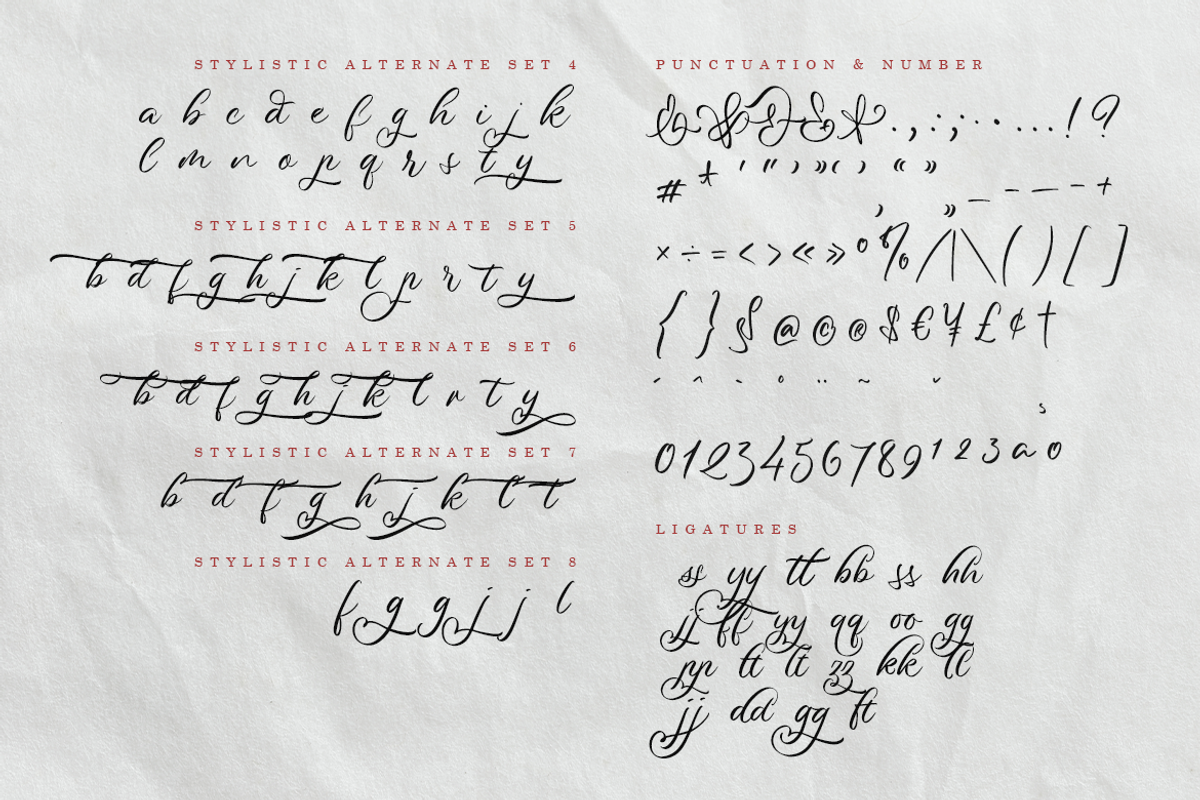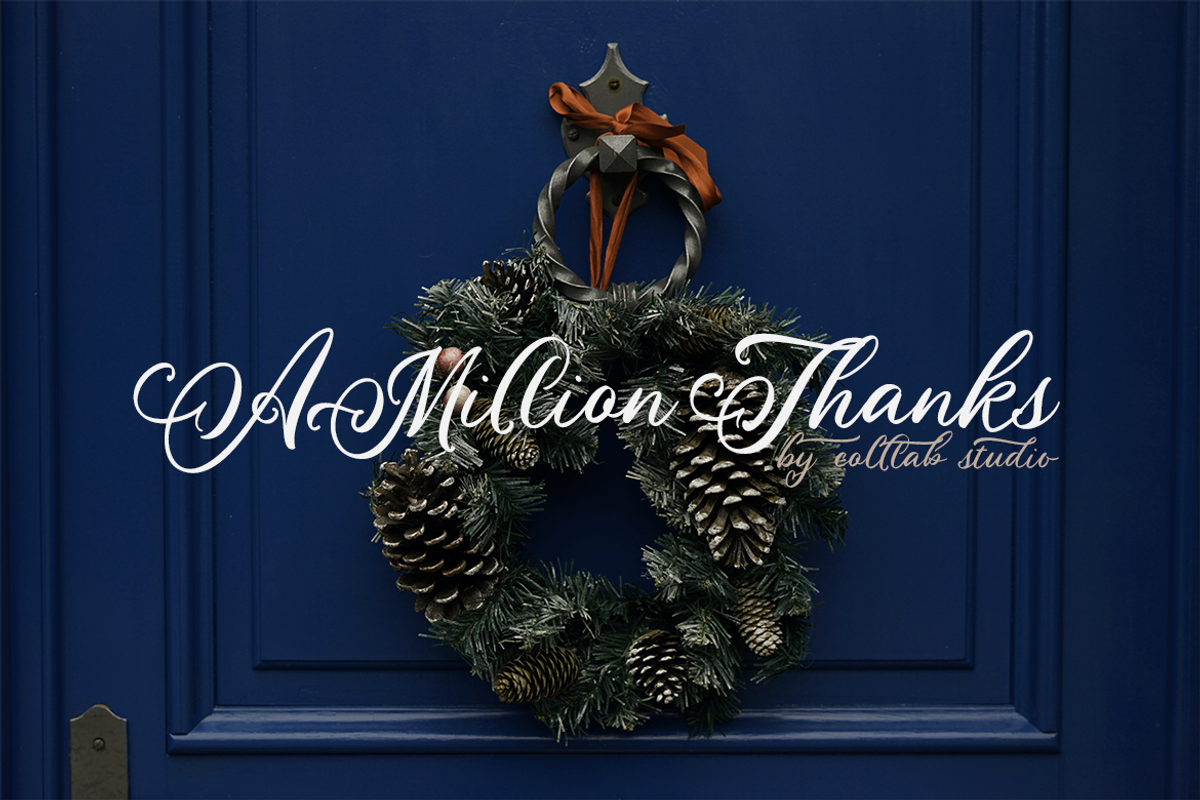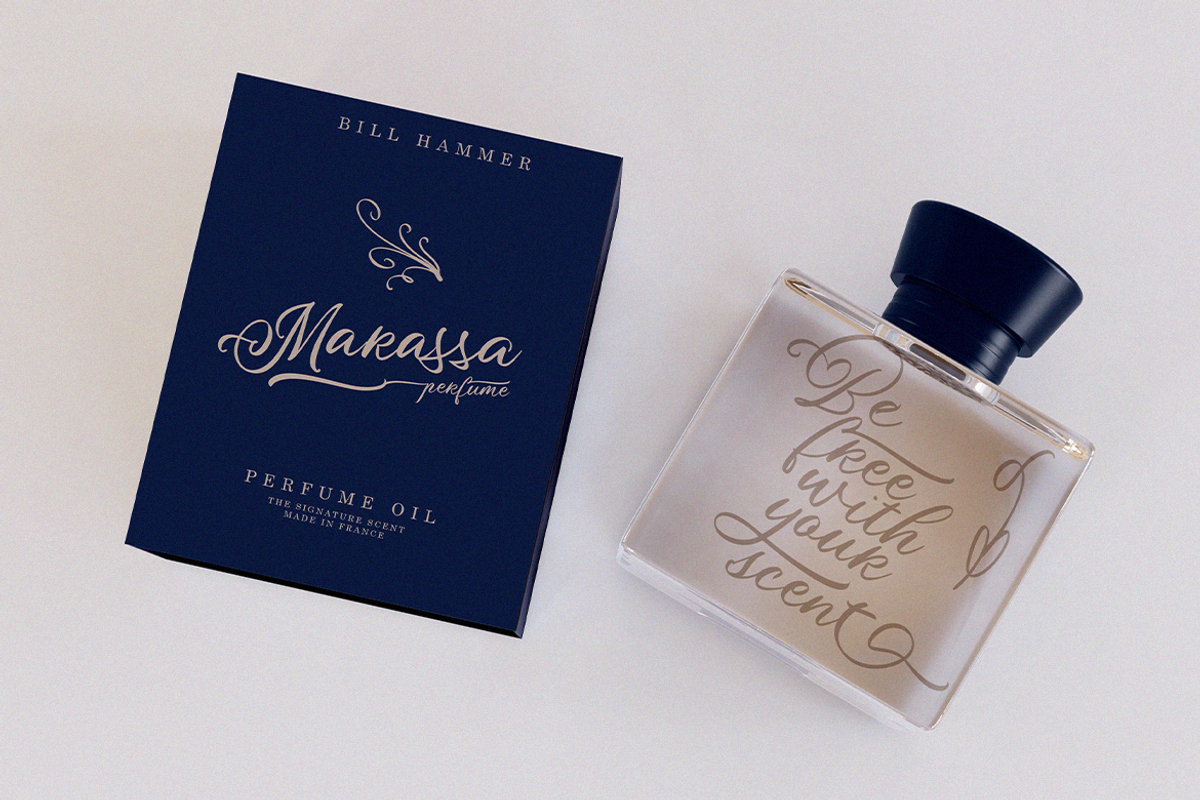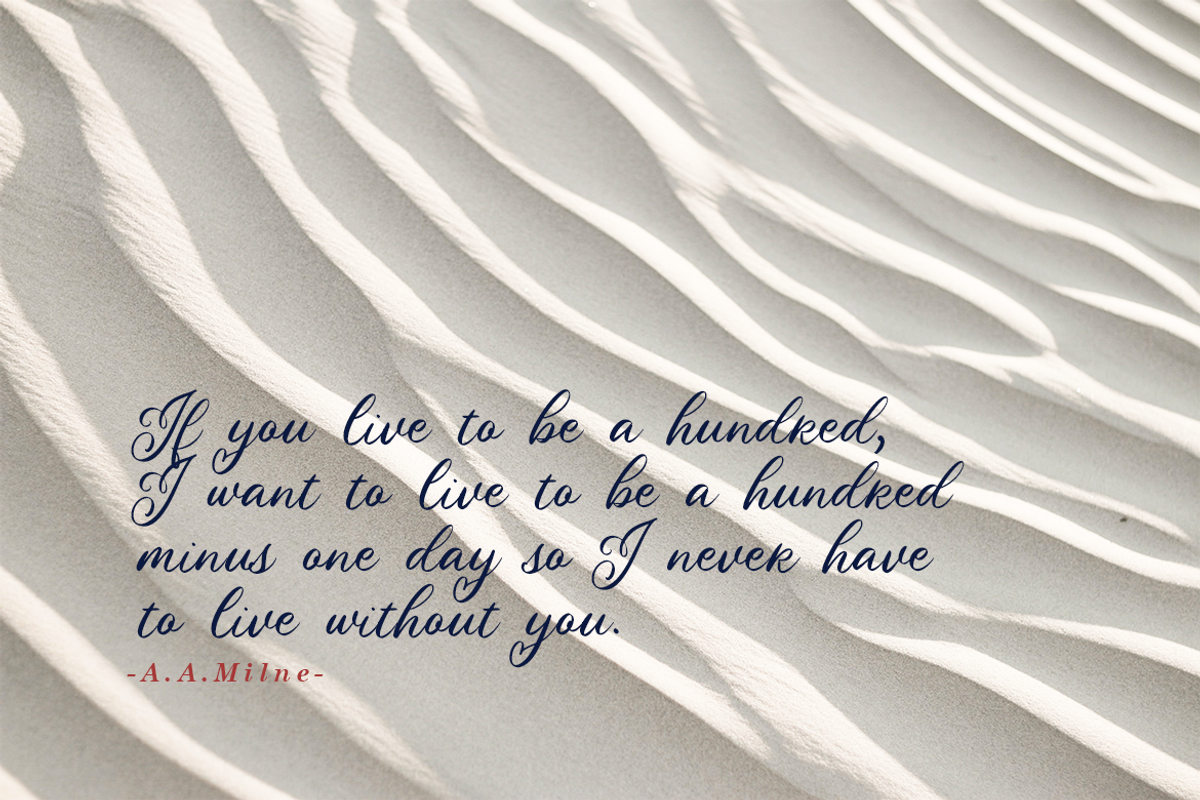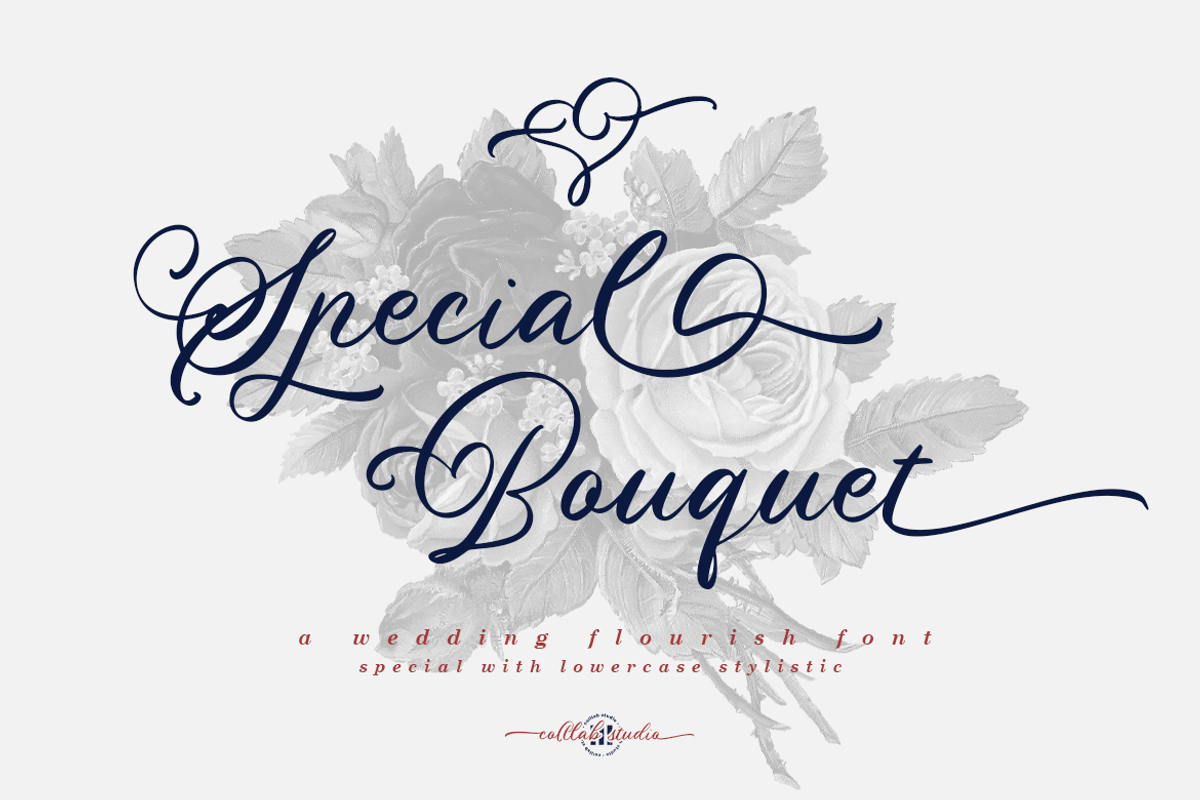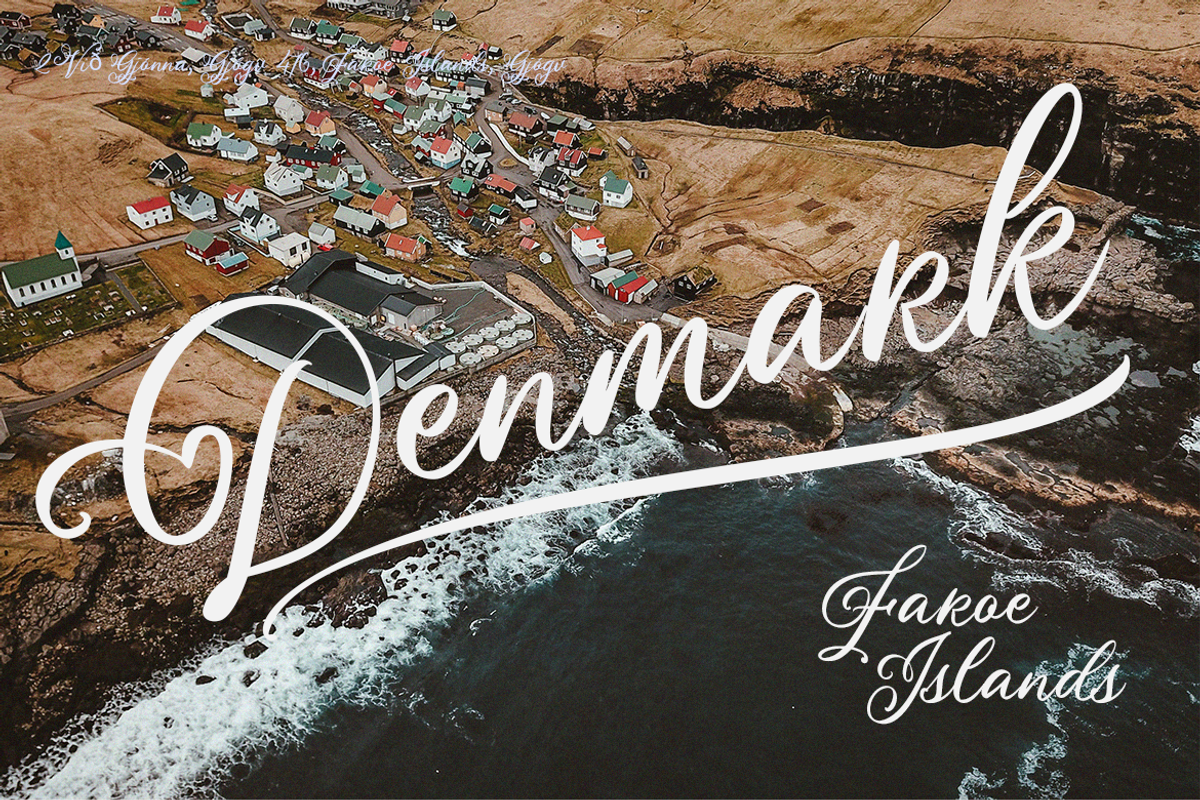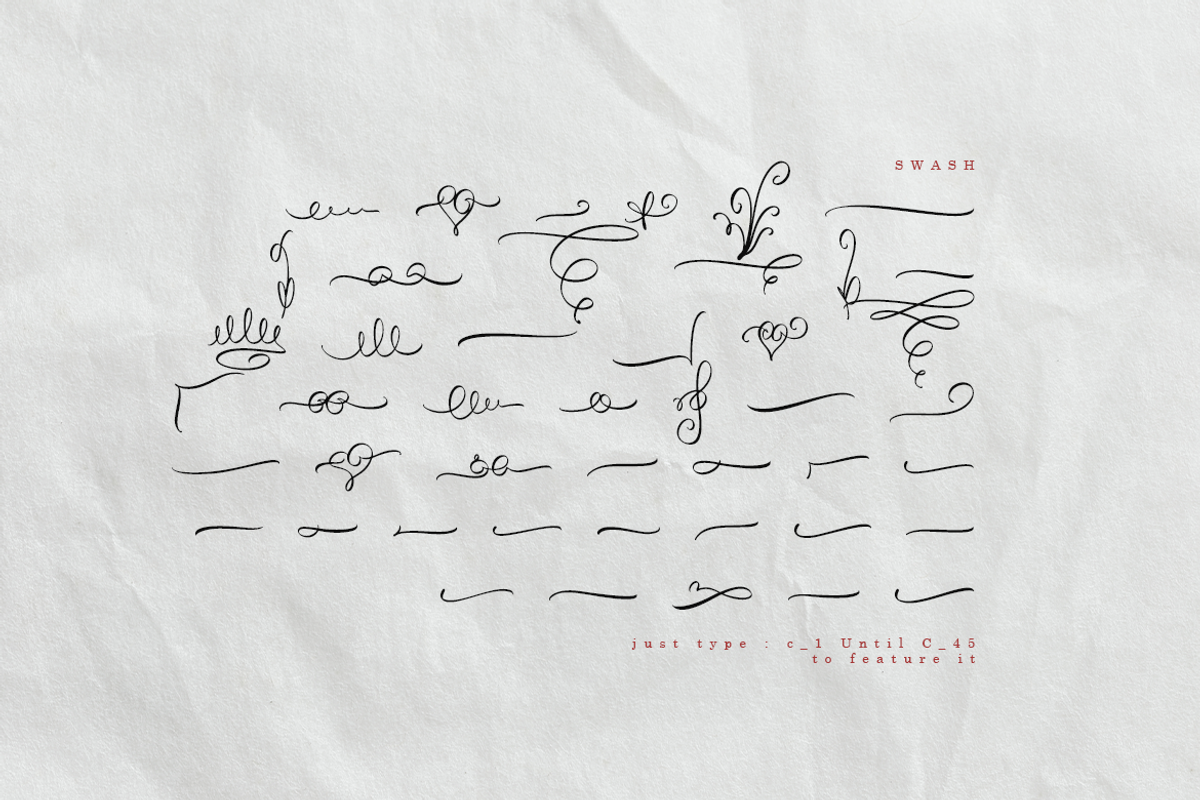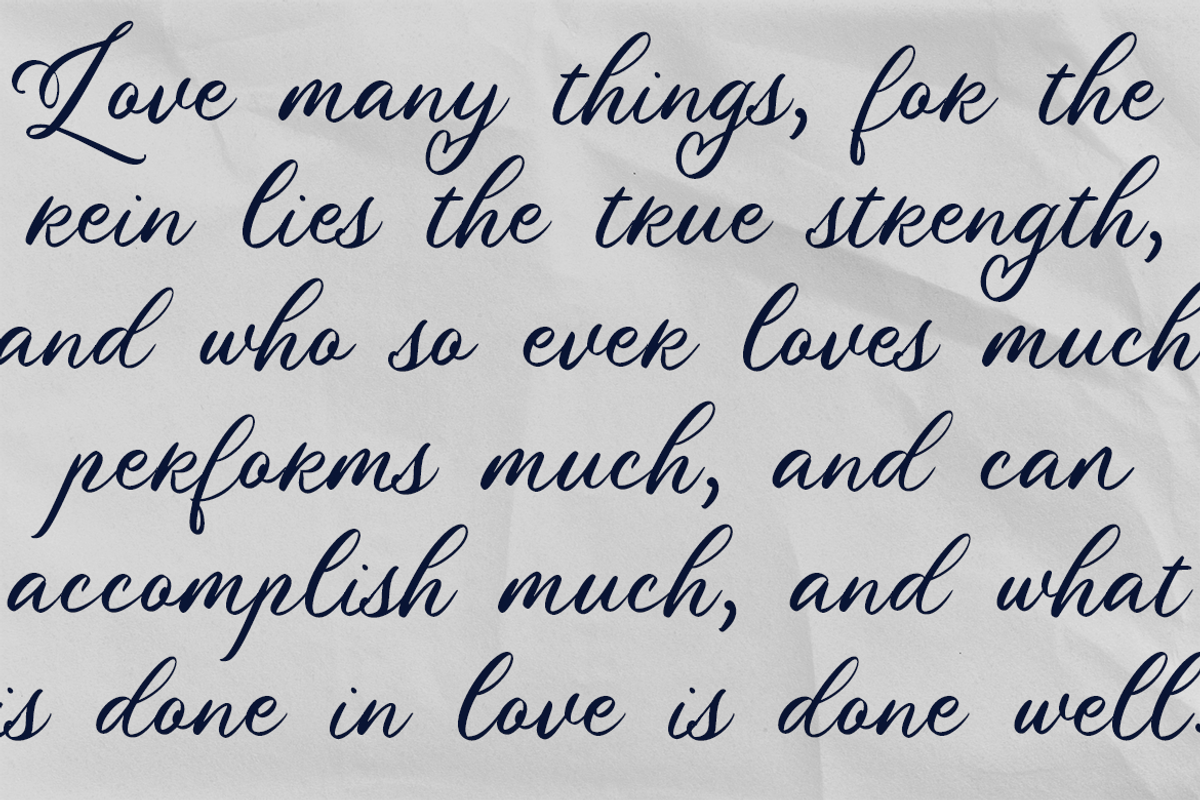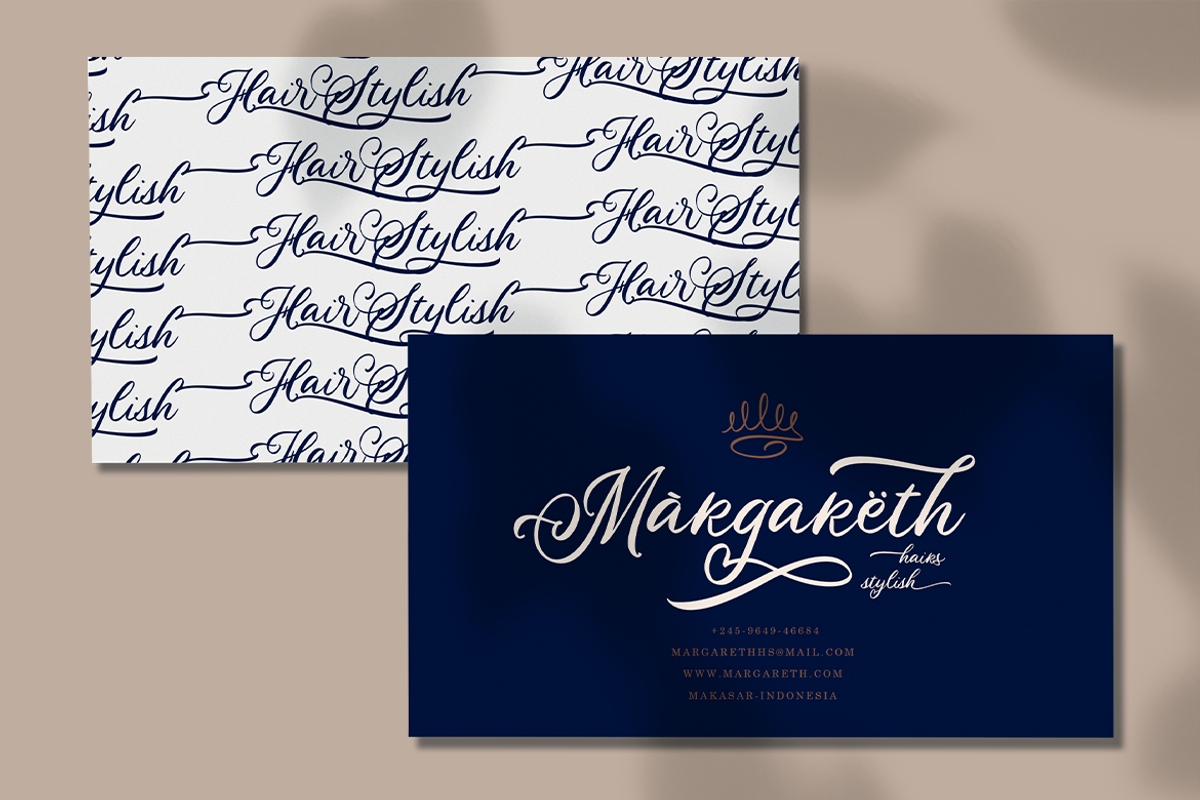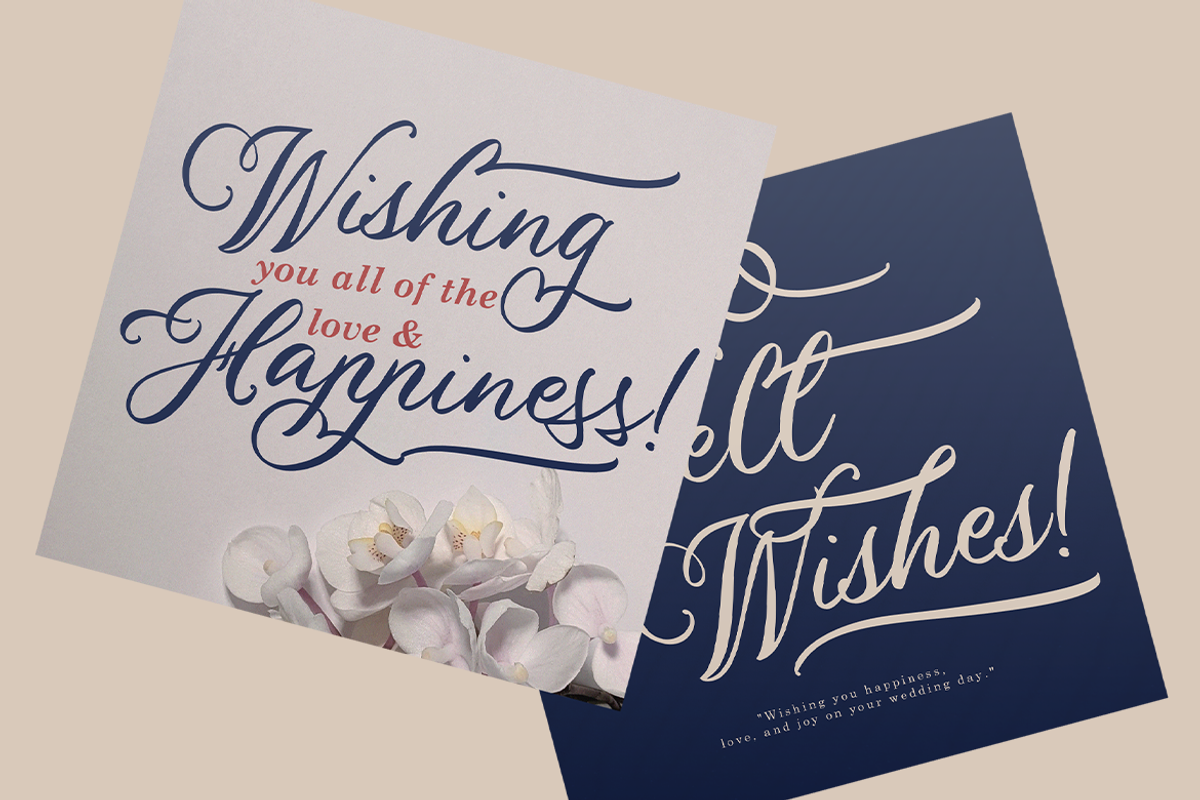
Special Bouquet | A Flourish Font
Today, we are releasing one of the most romantic font we ever crafted. we called it Special Bouquet. The characters in special bouquet are soft and feminine without being overly curly. They give you all the oomph you need, but still remain gentle and easy to read.
Special Bouquet is a romantic font that will add an elegant touch to all your projects. You’ll find the perfect calligraphy style, embellishments and brush set to create your own personalized wedding invitations, high-end displays for local businesses or greeting cards to send a special message.
- 434 Glyps,
- 200+ Stylistic Alternates
- Ligatures & stylistics alternates
- Multilanguage Support ( 64 Languages )
- Set of beginning, middle and ending swashed both uppercase and lowercase